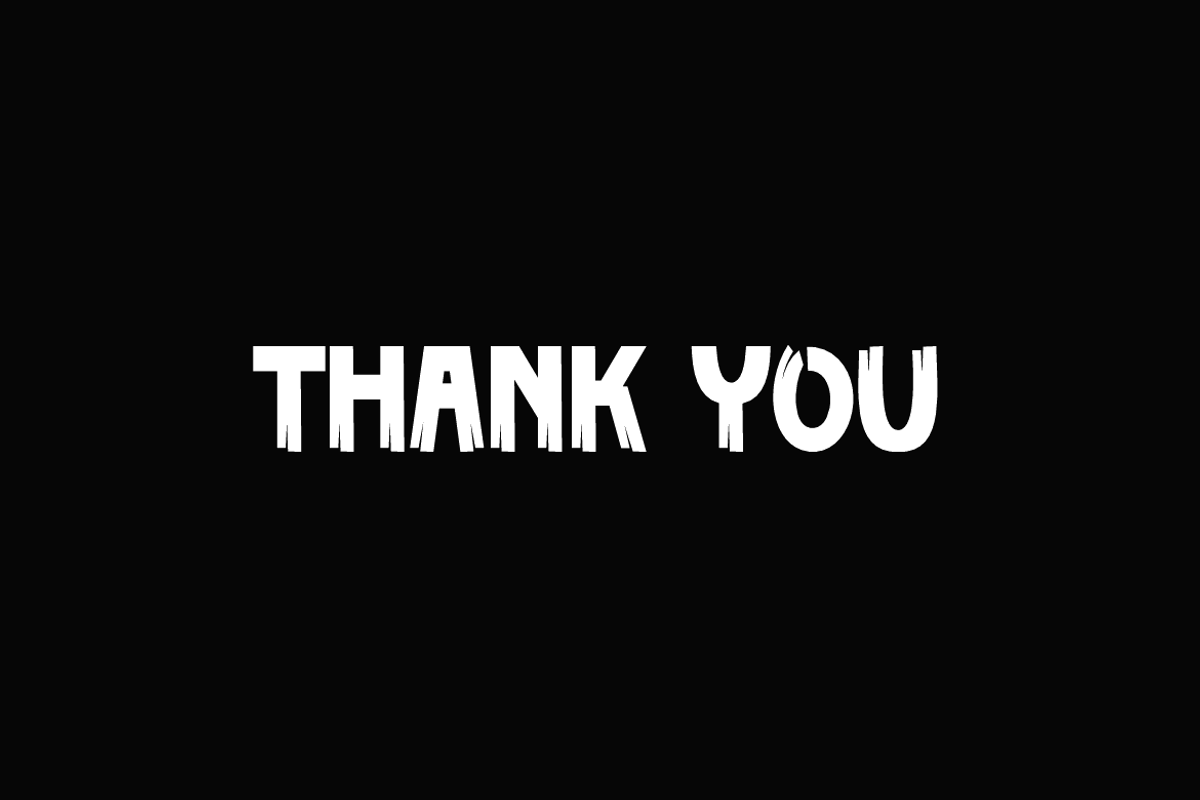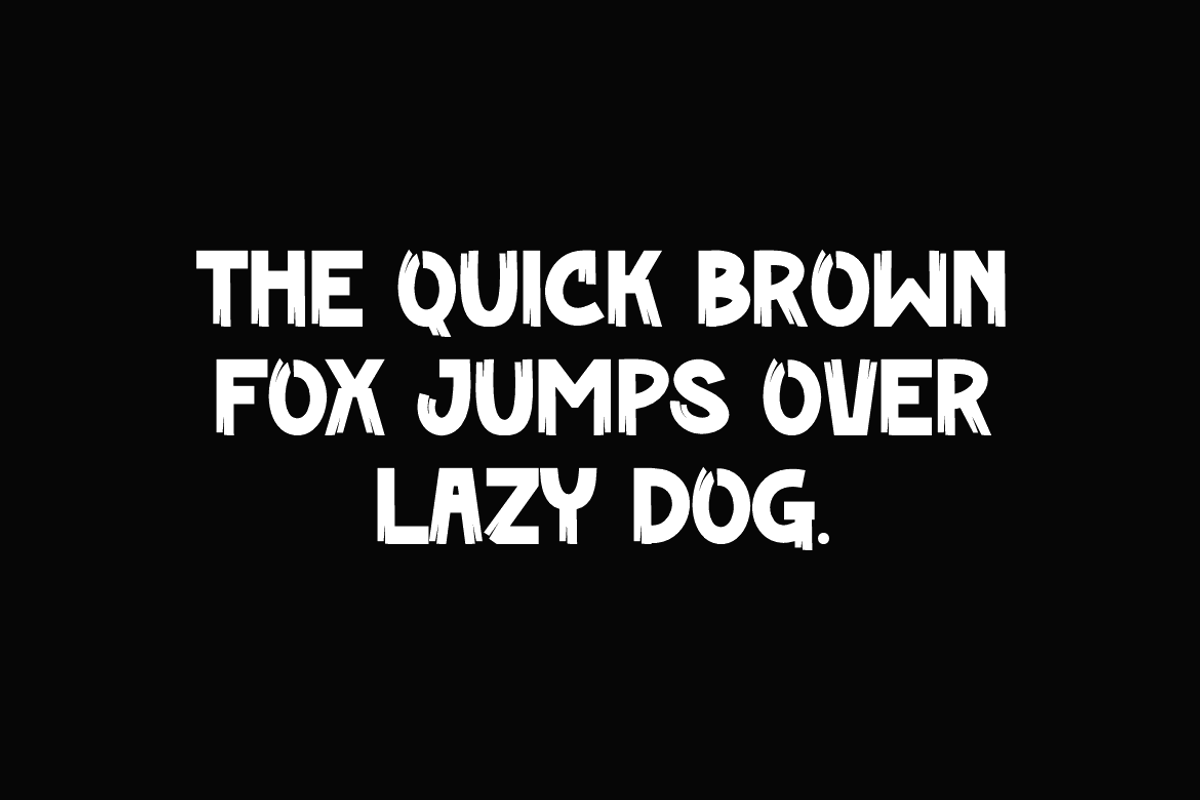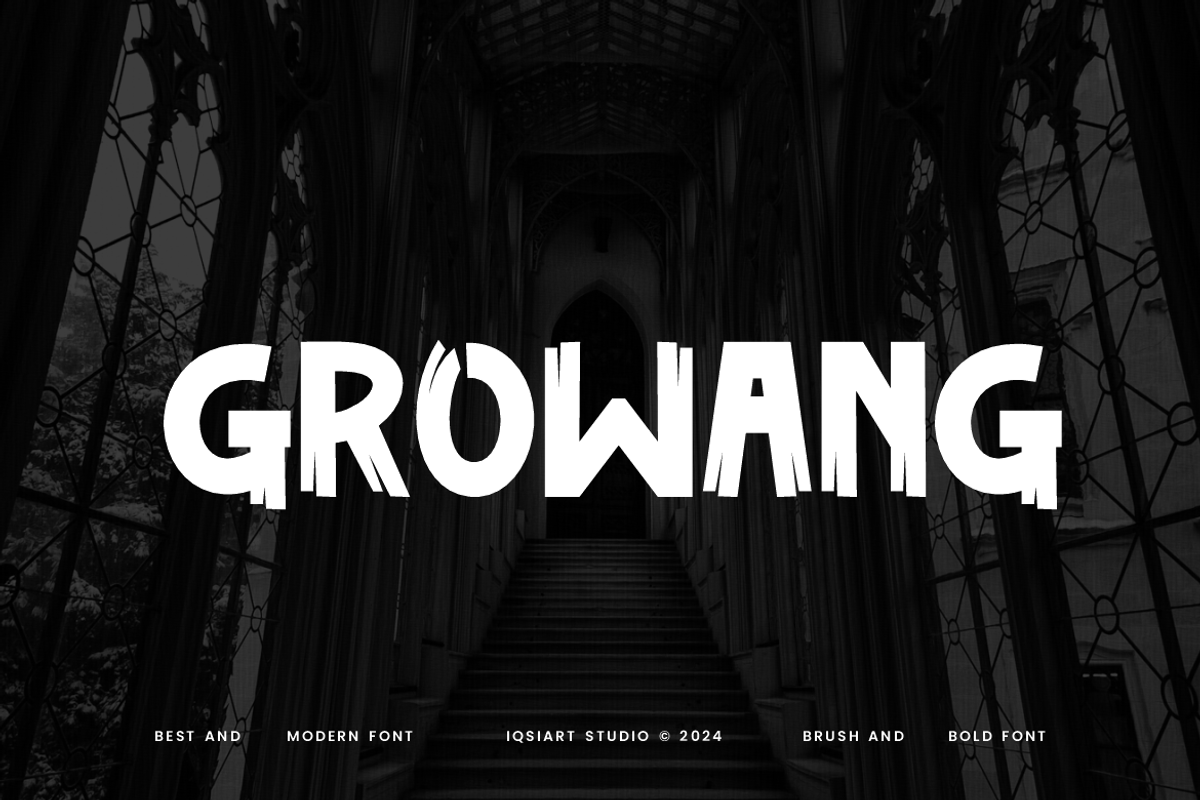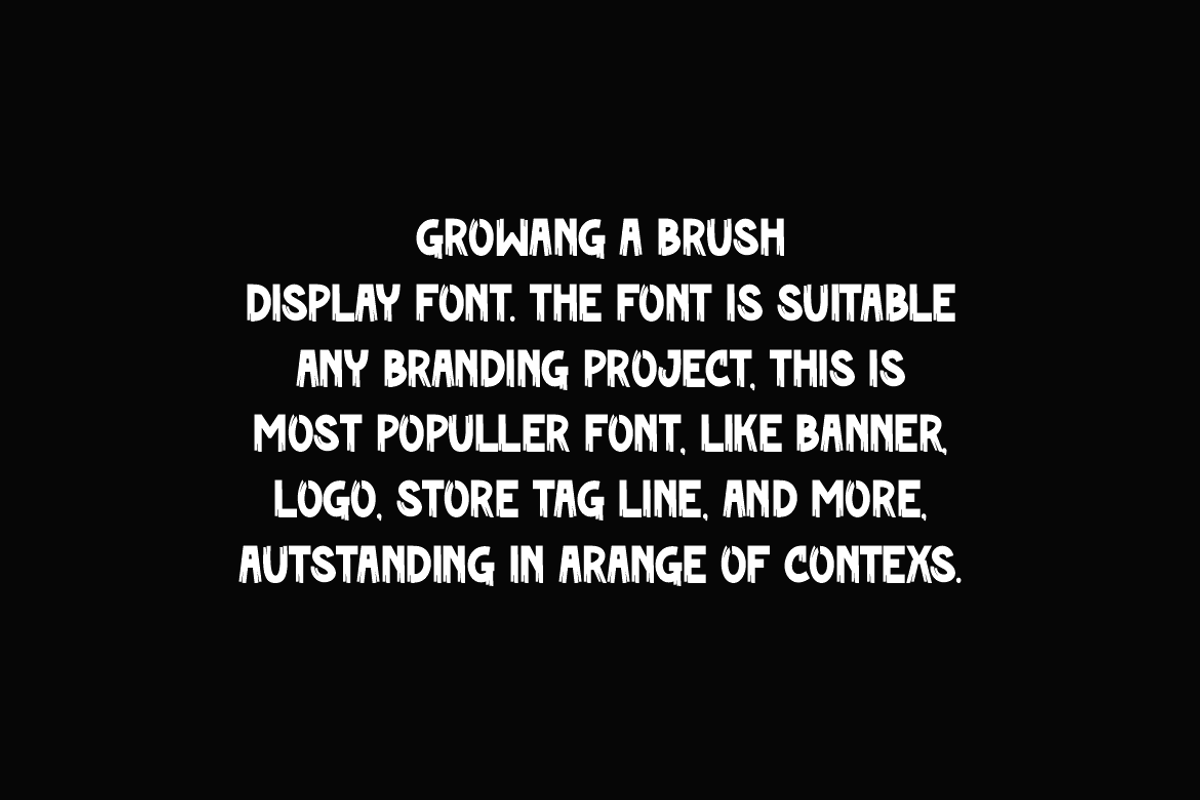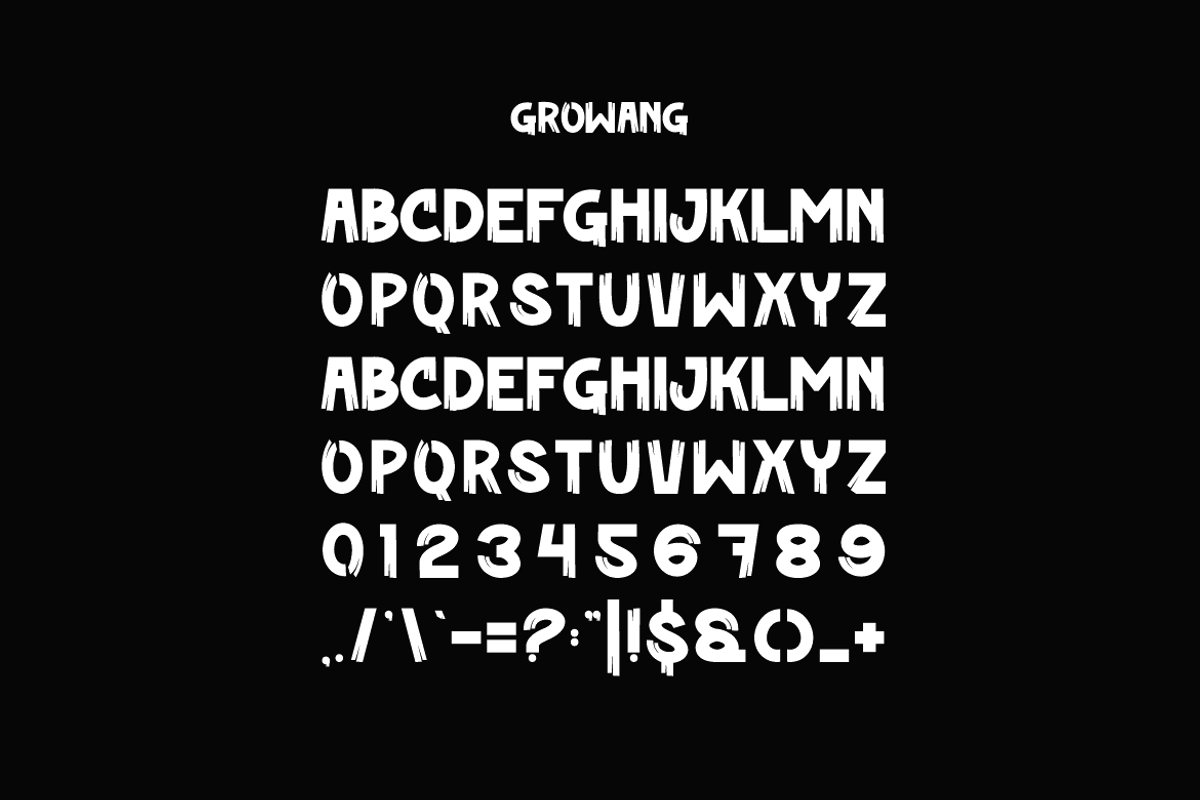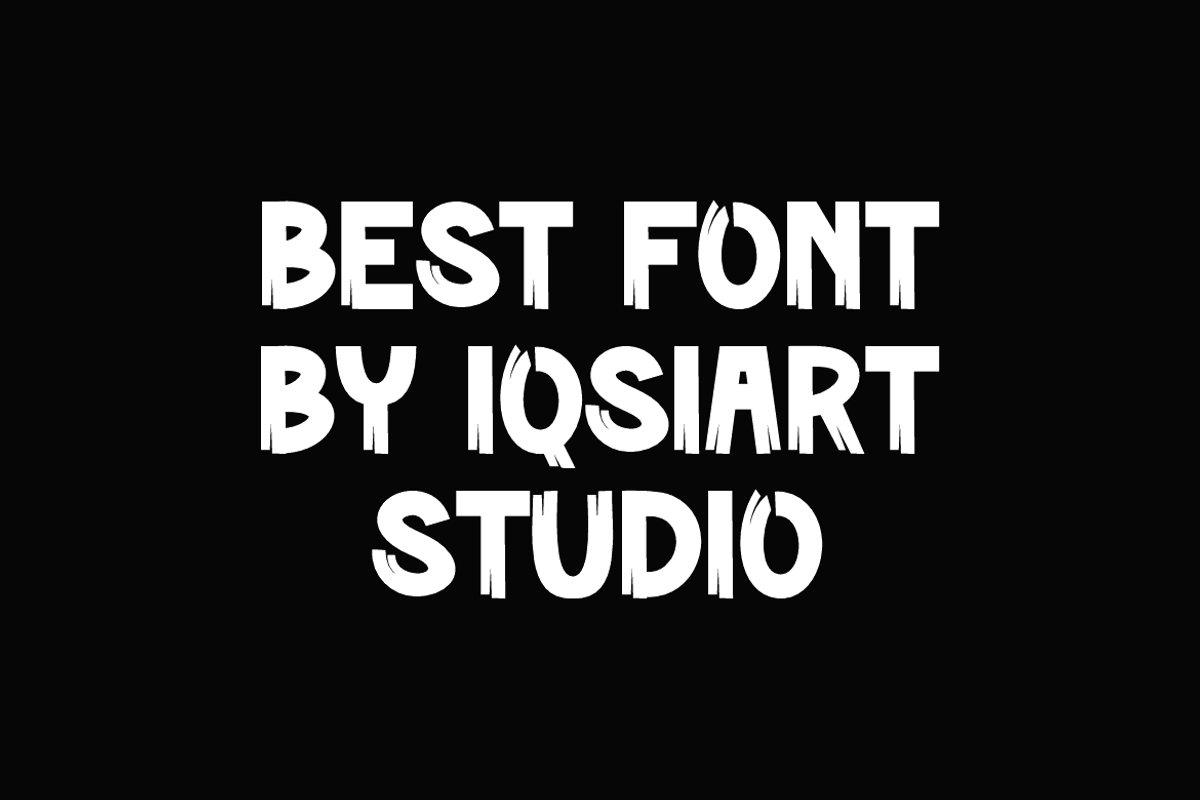
Growang - Brush Font
Growang Font is a best and authentic display font. This font can be used for your various needs. We provide various themes and font styles. visit our profile to get a wide variety of themes and different font styles you need.